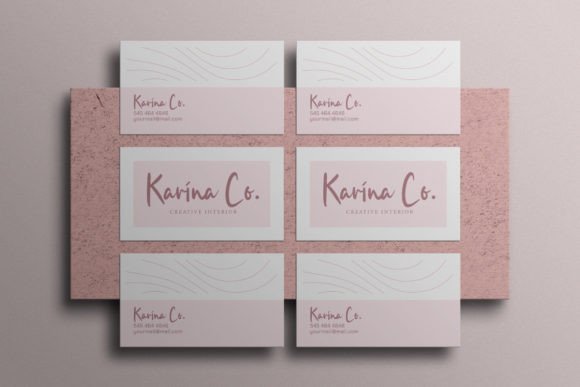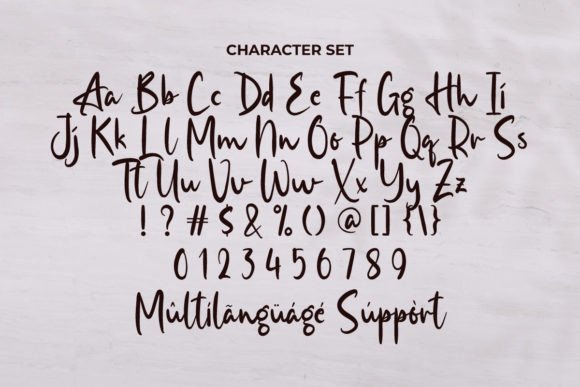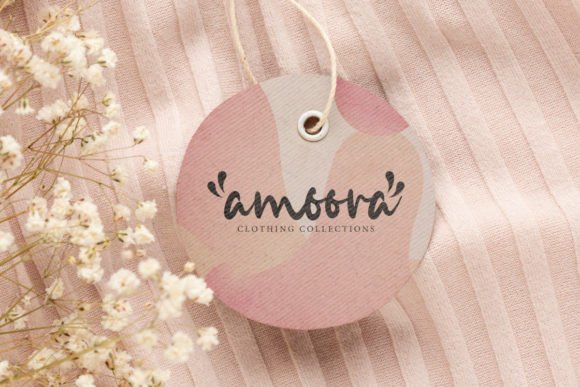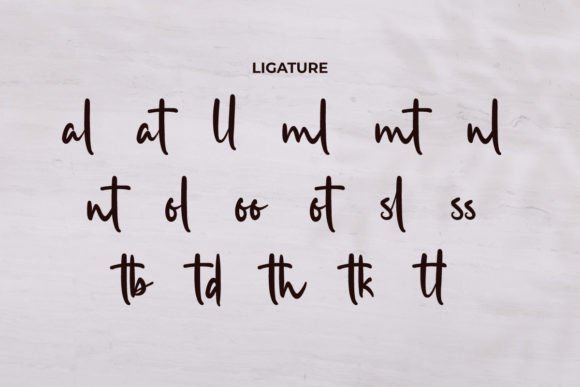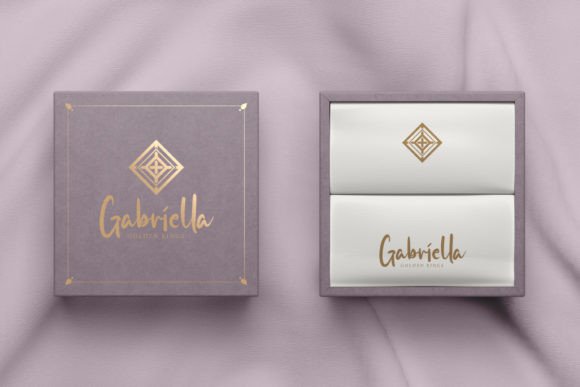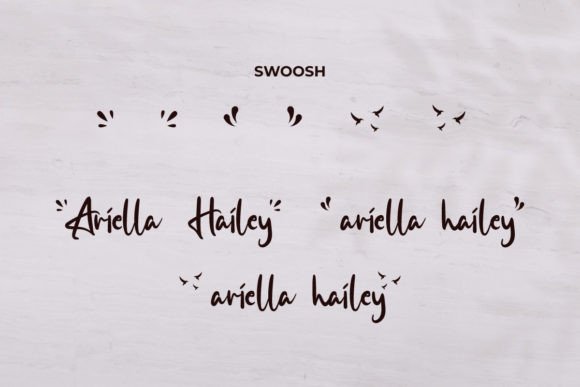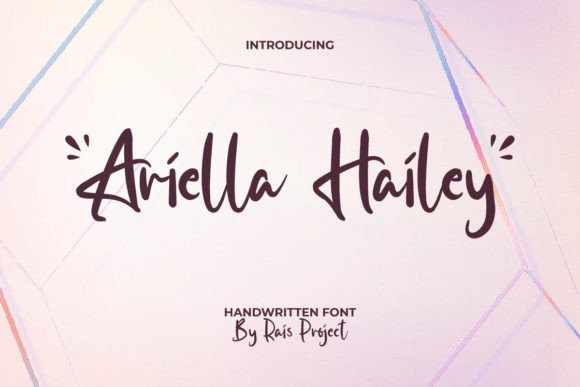
Ariella Hailey Font: Elevate Your Designs with Elegance and Sophistication
In the world of typography, fonts play a crucial role in conveying the tone and aesthetic of a design. For designers and crafters seeking a modern script font that exudes elegance and sophistication, Ariella Hailey is an exceptional choice. This beautiful font is perfect for creating stunning branding, wedding invitations, and designs that require a touch of modern beauty.
What Makes Ariella Hailey Stand Out?
Ariella Hailey is a modern script font that boasts smooth and fluid strokes with a contemporary twist. Its elegant and luxurious look makes it an ideal choice for designers who want to add a touch of sophistication to their creations. The font’s unique characteristics include:
- Smooth and fluid strokes: Ariella Hailey’s strokes are carefully crafted to create a seamless and refined look.
- Contemporary twist: The font’s modern edge sets it apart from traditional script fonts, making it perfect for designs that require a fresh and updated look.
- Elegant and luxurious: Ariella Hailey’s overall aesthetic is one of refinement and luxury, making it suitable for high-end branding and designs.
One of the standout features of Ariella Hailey is its PUA (Private Use Area) encoding. This means that designers can effortlessly access all the delightful glyphs and swashes, allowing for greater creative freedom and flexibility. With PUA encoding, you can:
- Easily access alternative characters: Switch between different glyphs and swashes to add variety and interest to your designs.
- Customize your designs: Use the font’s built-in features to create unique and personalized designs that reflect your brand’s identity.
Ariella Hailey is an excellent choice for designers and crafters working on a range of projects, including:
- Branding: Use Ariella Hailey to create stunning logos, business cards, and marketing materials that exude elegance and sophistication.
- Wedding invitations: Add a touch of luxury and romance to your wedding invitations and stationery with this beautiful script font.
- Designs that require a touch of modern beauty: From fashion and beauty designs to lifestyle and home decor projects, Ariella Hailey is the perfect choice for adding a touch of modern elegance.
Tips for Using Ariella Hailey
To get the most out of Ariella Hailey, consider the following tips:
- Experiment with different sizes and styles: Play with different font sizes and styles to create visual interest and hierarchy in your designs.
- Pair with complementary fonts: Combine Ariella Hailey with complementary fonts to create a unique and harmonious typography scheme.
- Take advantage of PUA encoding: Explore the font’s built-in glyphs and swashes to add personality and flair to your designs.
Ariella Hailey is a stunning modern script font that offers designers and crafters a unique opportunity to elevate their designs with elegance and sophistication. With its smooth and fluid strokes, contemporary twist, and PUA encoding, this font is perfect for creating beautiful branding, wedding invitations, and designs that require a touch of modern beauty. Whether you’re a seasoned designer or a crafty DIY enthusiast, Ariella Hailey is an excellent addition to your typography toolkit.